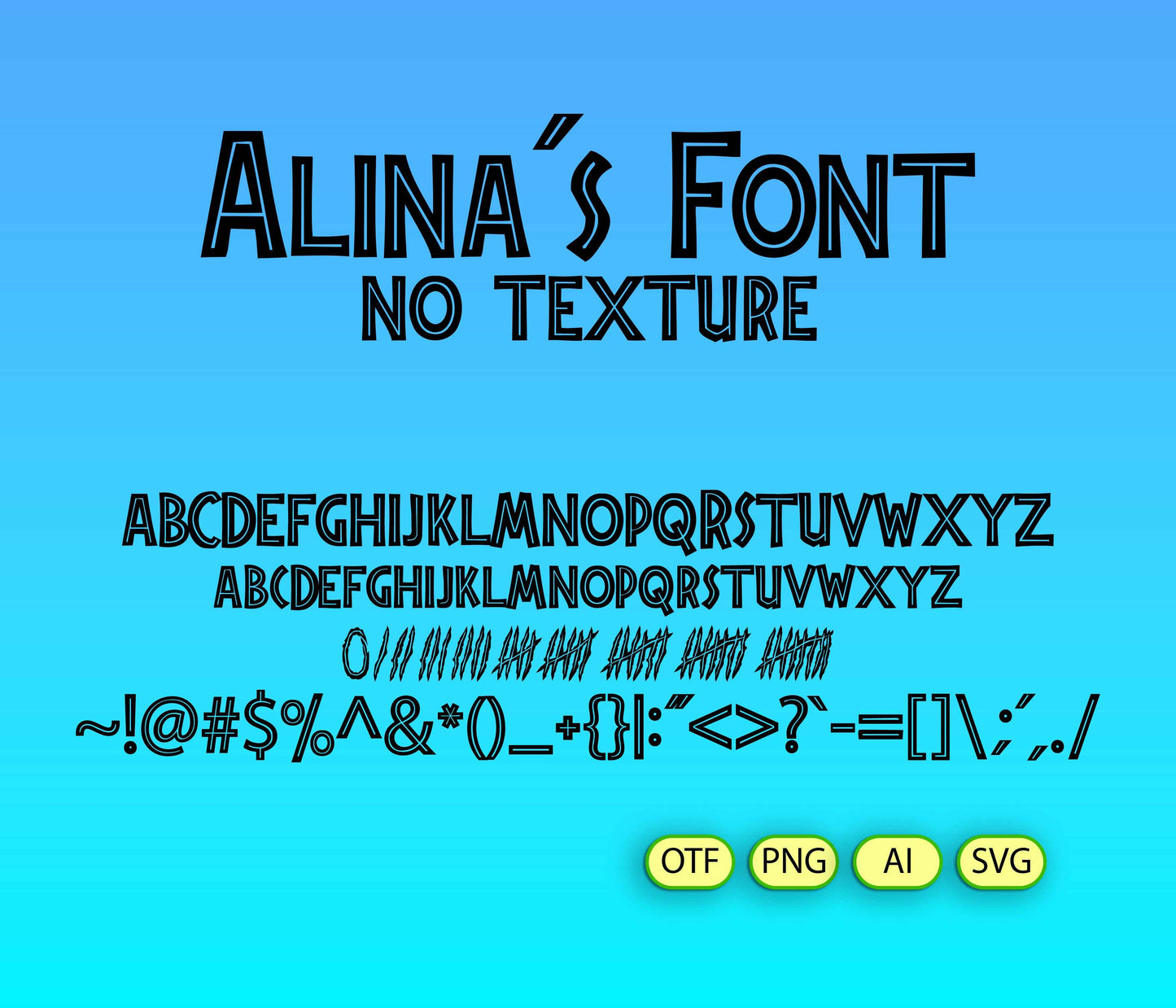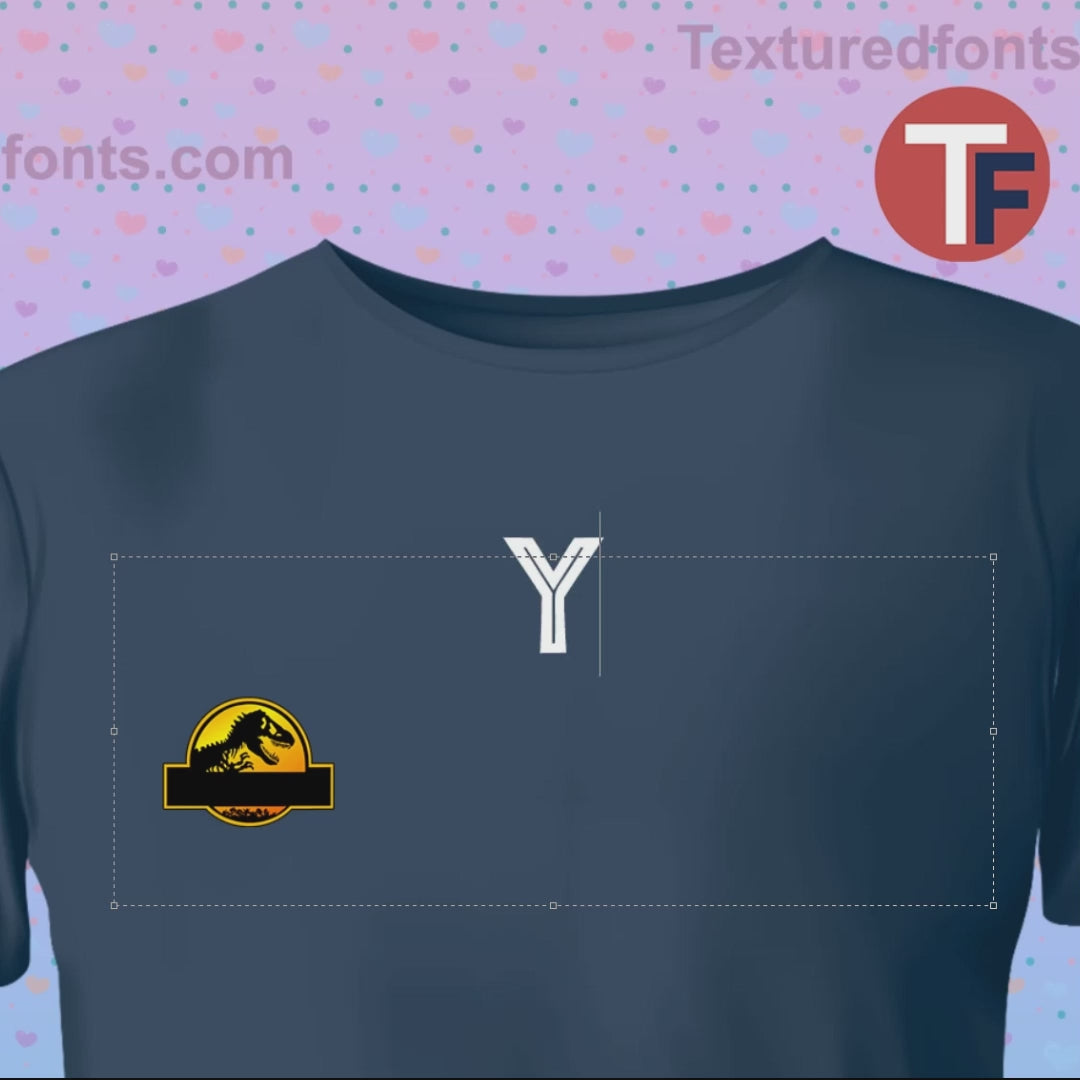
Dino World: Chaos Theory Font
Unleash the Wild with the Dino World: Chaos Theory Font
Dive into the thrilling and untamed world of dinosaurs with our Dino World: Chaos Theory font. Designed to capture the essence of an adventurous blockbuster, this font embodies the excitement and raw energy of a prehistoric universe. Perfect for fans, theme park creators, and multimedia designers, this font ensures your projects resonate with dynamic tension and primal adventure.
The Dino World: Chaos Theory font features rugged, jagged edges and bold, impactful strokes that mirror the chaotic and primal nature of the dinosaurs themselves. This powerful design is well-suited for a wide range of applications:
- Promotional Content: Create eye-catching posters, trailers, and digital advertisements for movie releases or related events.
- Themed Attractions: Design engaging signage and guide maps for theme parks or exhibitions.
- Merchandising: Produce compelling t-shirts, hats, and collectibles for fans.
- Digital Media: Enhance websites and social media platforms with striking headers and promotional graphics.
- Educational Materials: Use in presentations or informational content about paleontology or the science behind dinosaurs.
Our Dino World: Chaos Theory font not only pays tribute to the iconic theme but also empowers you to infuse your designs with the epic sense of adventure and suspense that defines the dinosaur world. Whether you’re creating promotional materials, designing themed environments, or crafting interactive educational tools, this font allows you to communicate with the intense, exhilarating spirit of the wild. Ready to bring the age of dinosaurs to life in your creative projects? This font is your gateway to a world of imagination and excitement.